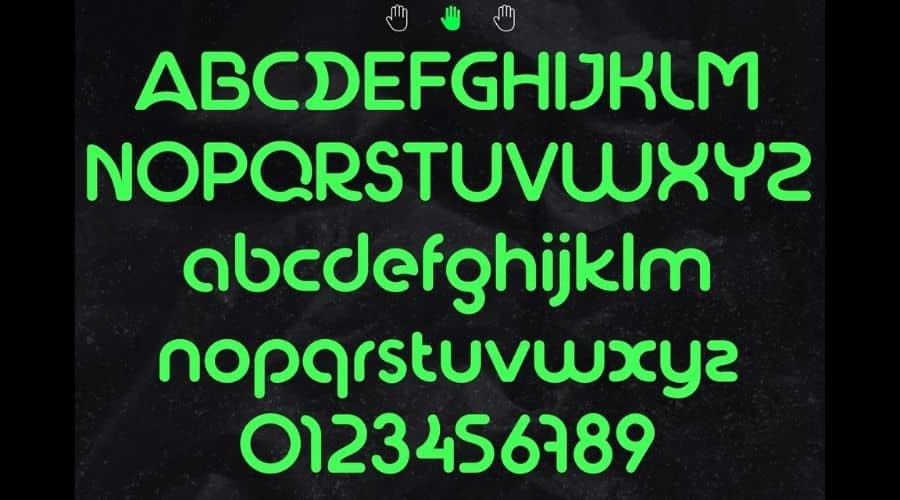
Aremat Font
Aremat Sans Serif Font is a modern sans typeface with a clean, simple design. It’s an experimental circular geometric font. 177 studio created and produced the font. On February 26, 2021, the font was made public. Uppercase and lowercase letters, accented characters, numerals, and punctuation are all included in this lovely font. aremat font.ttf, aremat font.otf, aremat font italic.ttf, aremat font italic.otf, aremat font shadow.ttf, aremat font shadow.otf, aremat font shadow italic.ttf, aremat font shadow italic.otf, aremat font shadow italic.ttf, aremat font shadow italic.otf, aremat font shadow italic.t.
Aremat is a geometric sans serif typeface with a nice vibe. It can be simply matched to an amazingly broad range of projects, so incorporate it into your creative concepts and see how it elevates them! The font was created specifically for use in logos, headlines, titles, and posters. It has a strong future feel to it and may be classified as a modern typeface, even if it works well in a retro setting. The font looks good with almost every colour combinations.
| Name | Aremat Font |
| Style | Sans-serif. |
| Designer | 177 studio |